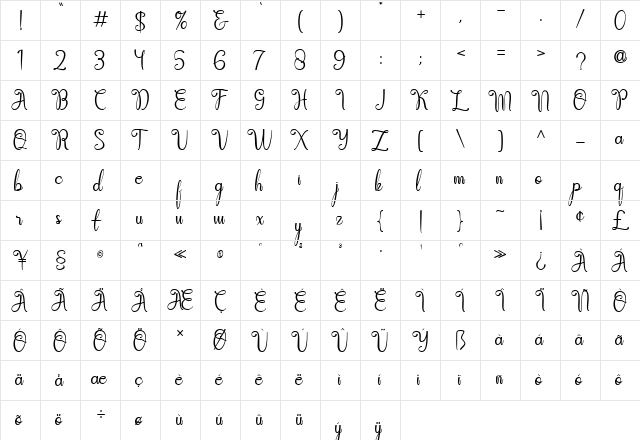
Athernal - Personal Use Regular
| Foundry | Wondoo Studio Co. |
| Designer | Herya Wildan |
Design Context for Athernal - Personal Use Typeface
Athernal - Personal Use is a composed and adaptable typeface that performs quietly and consistently across a wide range of design contexts.